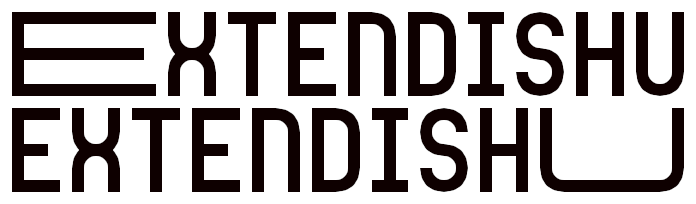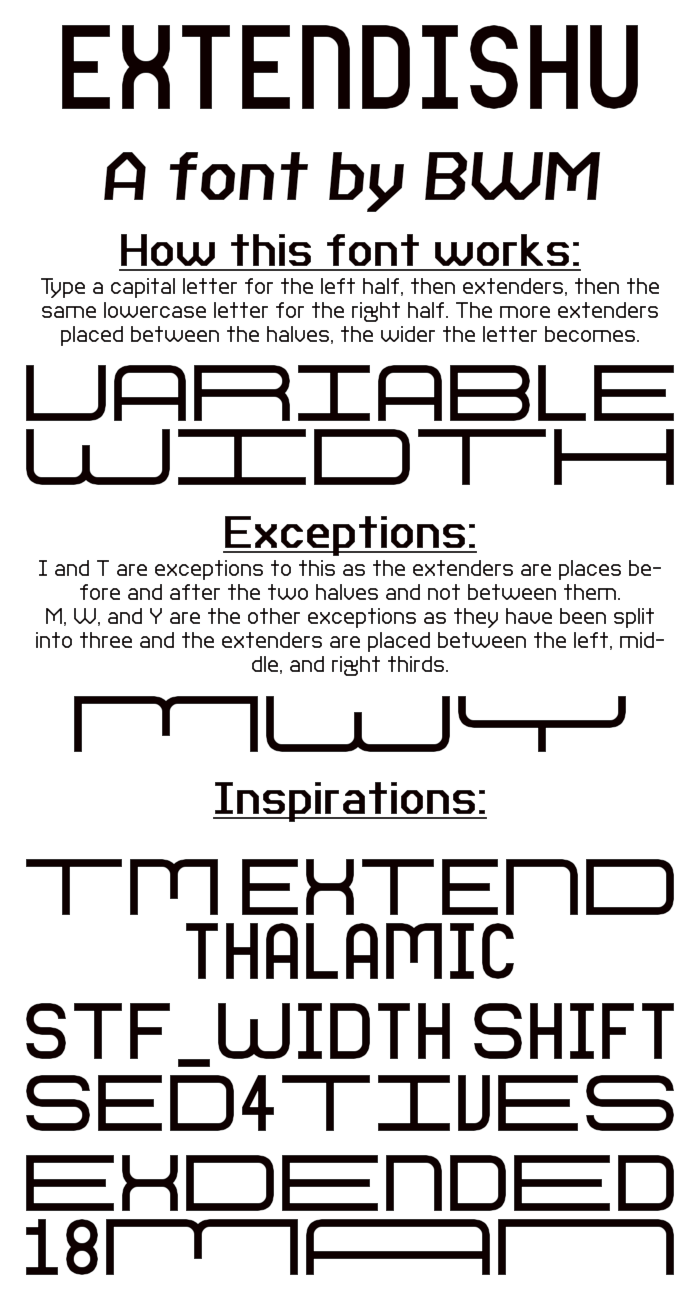
• Inspirations for this font: tm Extend by thalamic, STF_WIDTH SHIFT by Sed4tives, and Exdended by 18man
Make each letter any width you like.
Type a capital letter for the left half, then extenders (but you don't have to), then the same lowercase letter for the right half. The more extenders that are inserted between the two halves, the wider the letter becomes.
I and T are exceptions, where the extenders are placed before and after the halves, not between.
Other exceptions are M, W, and Y, which are split into three, and extenders are placed between the left, middle, and right thirds.
The ? is split between ? and /
The extenders are located at @#$%^&*`, with [] being specific for the I, and {} being specific for the T to get proper spacing between those two letters.
How to extend the letters: A@@a, B##b, C$$c, D$$d, E##e, F%%f, G##g or G$$##g, H^^h, [[Ii]], J$$j or J&&$$j ⟨or J$$j}} or J&&j}} or J&&$$j}}⟩, K^^k, L&&l, M**(**m, N**n, O$$o, P%%p, Q$$q, R%%r, S##s, {{Tt}}, U&&u, V&&v, W&&)&&w, X^^x, Y^^|^^y, Z##z, ?``/
you can also invent new letters with this
Extendishuby Bryndan W. Meyerholt (BWM)